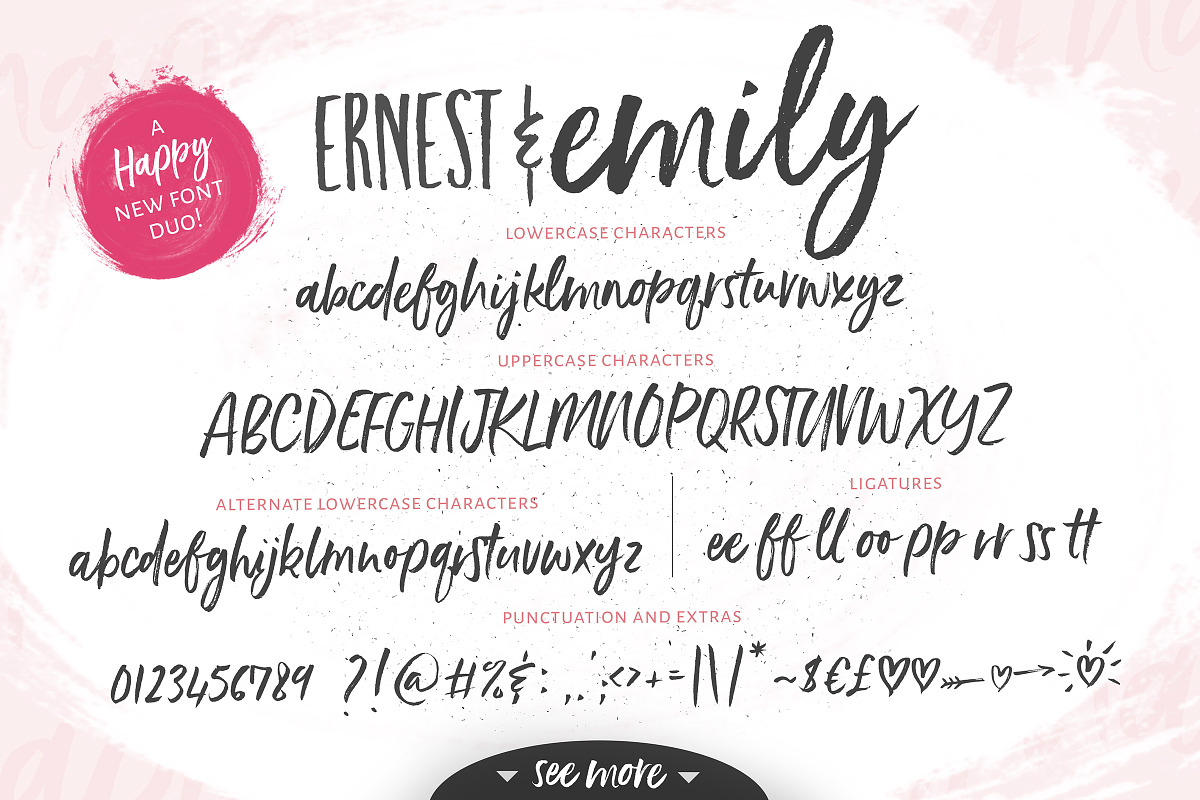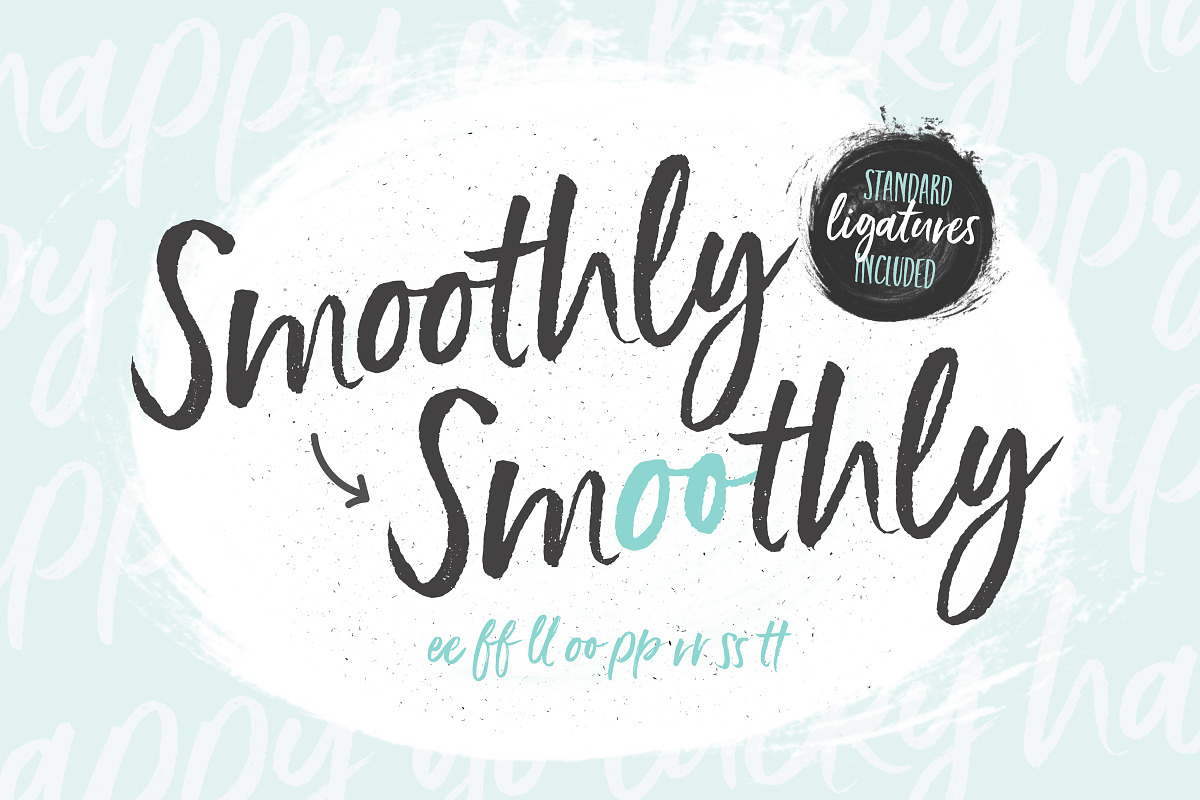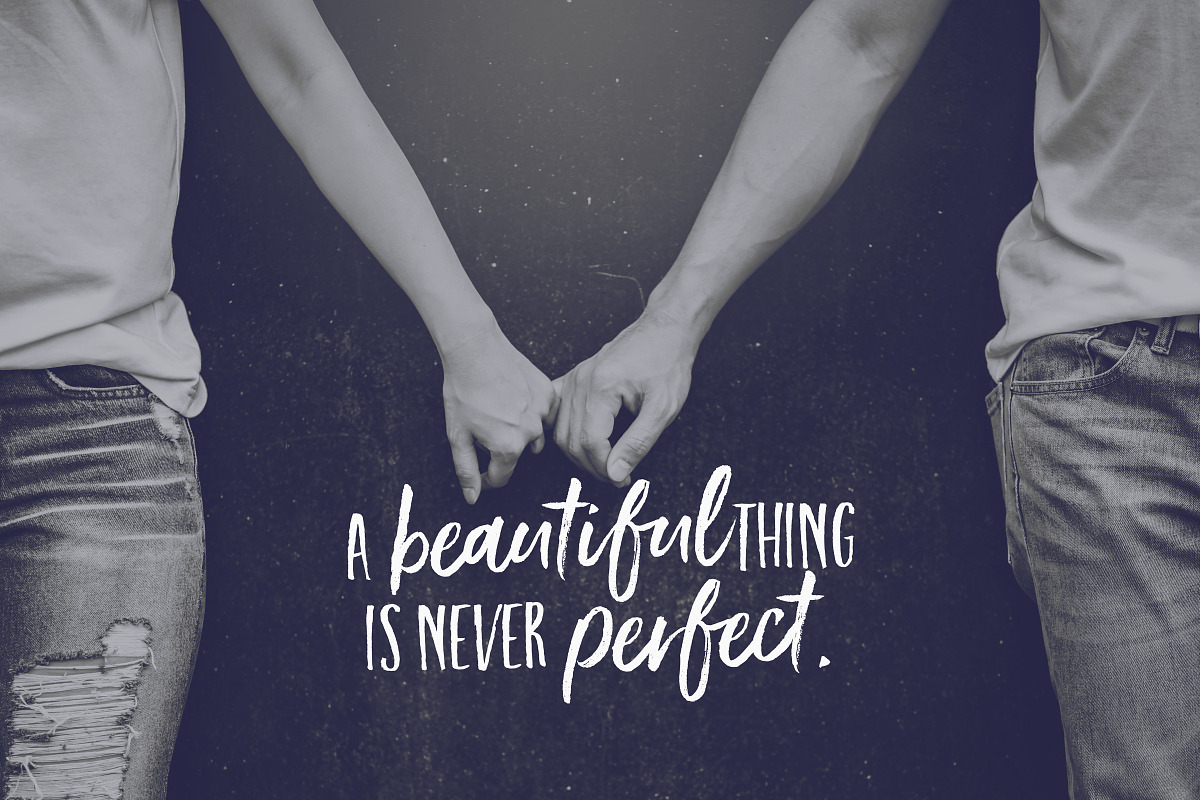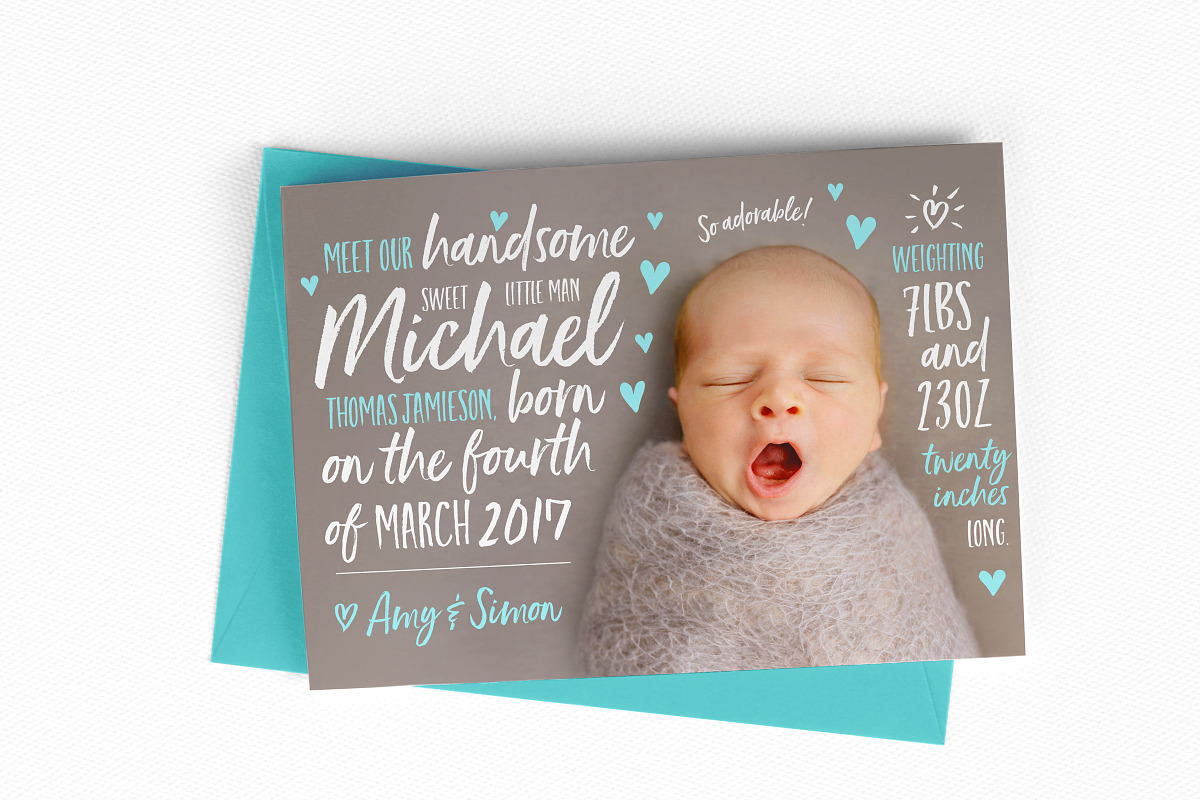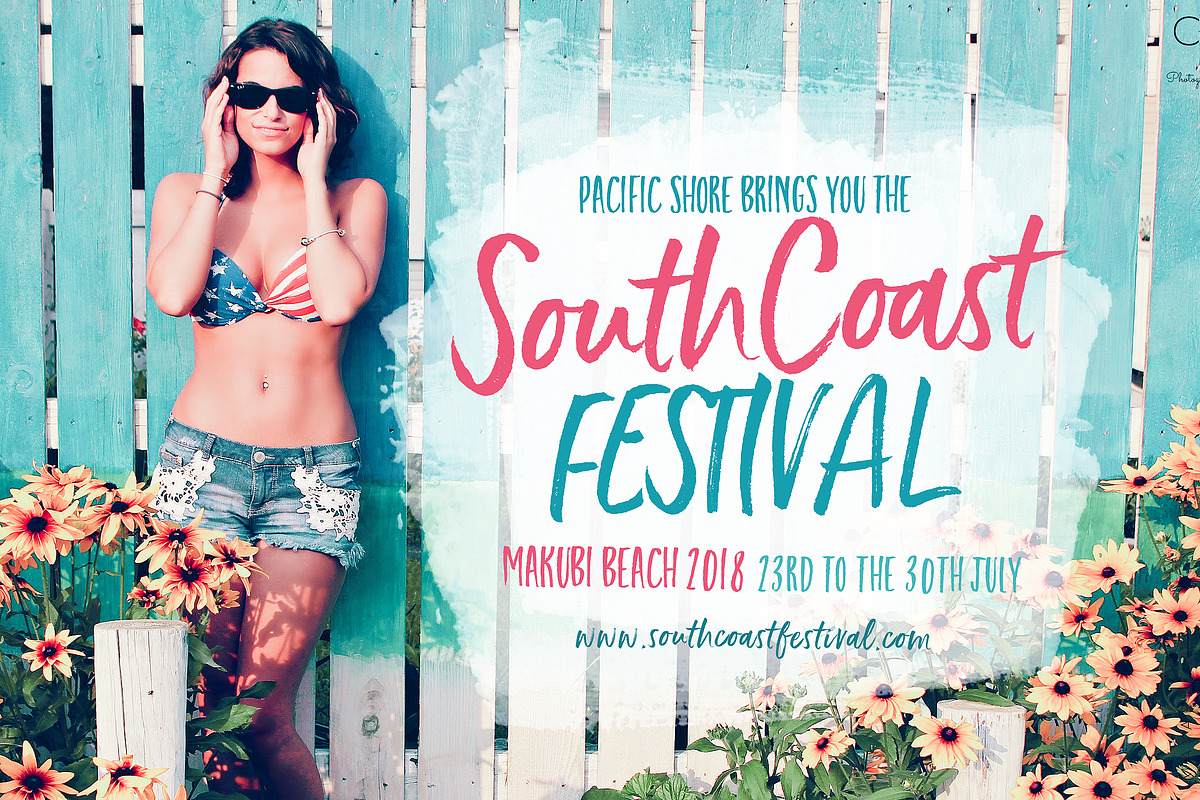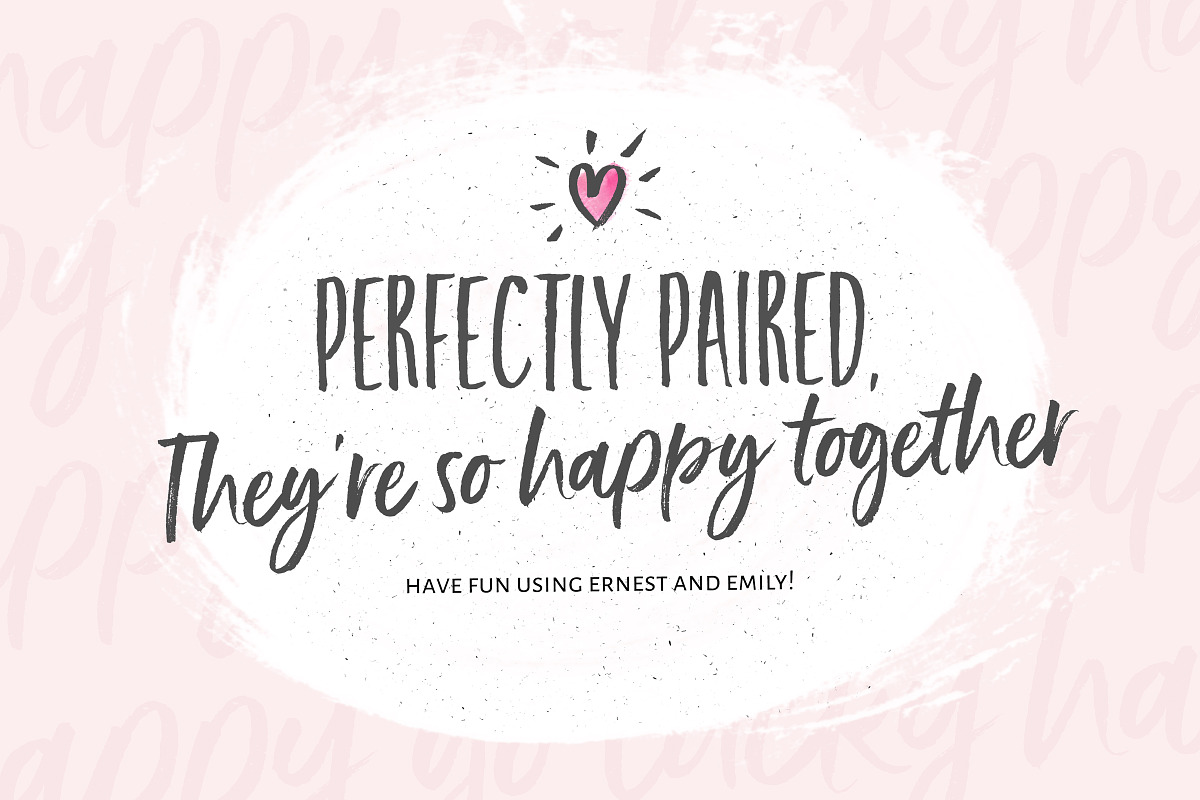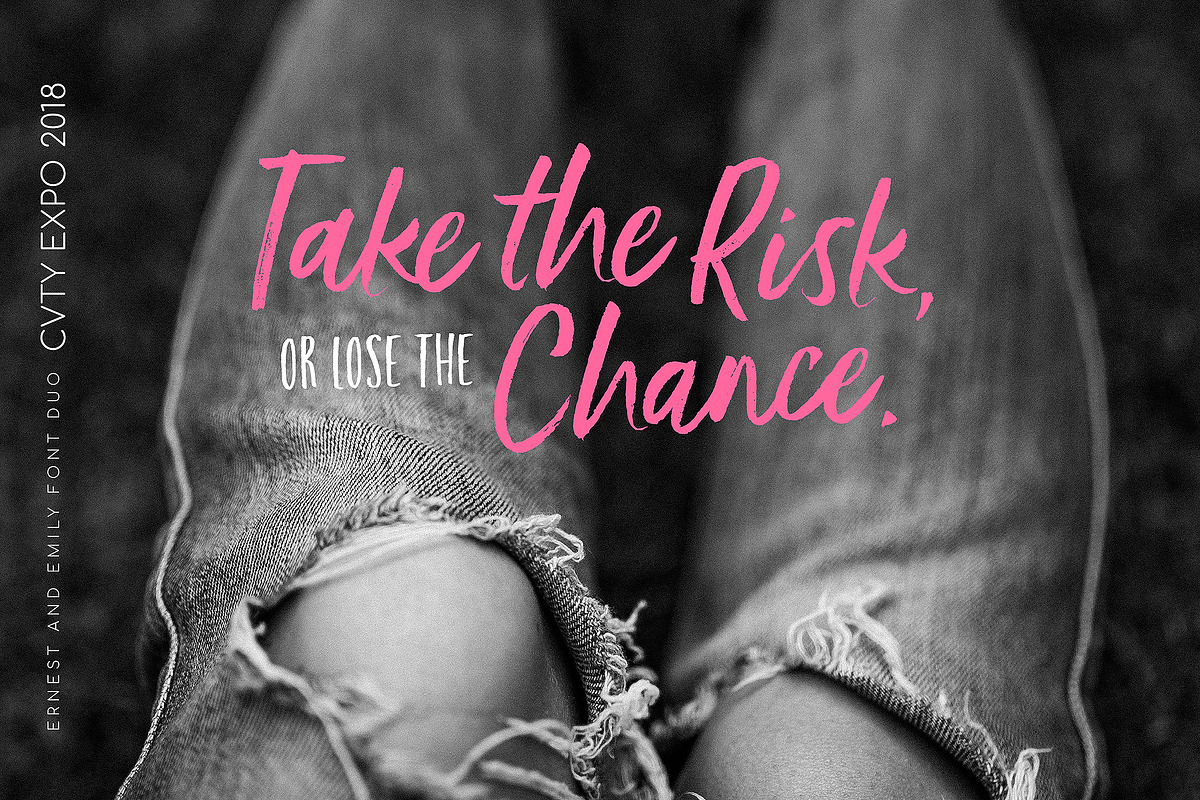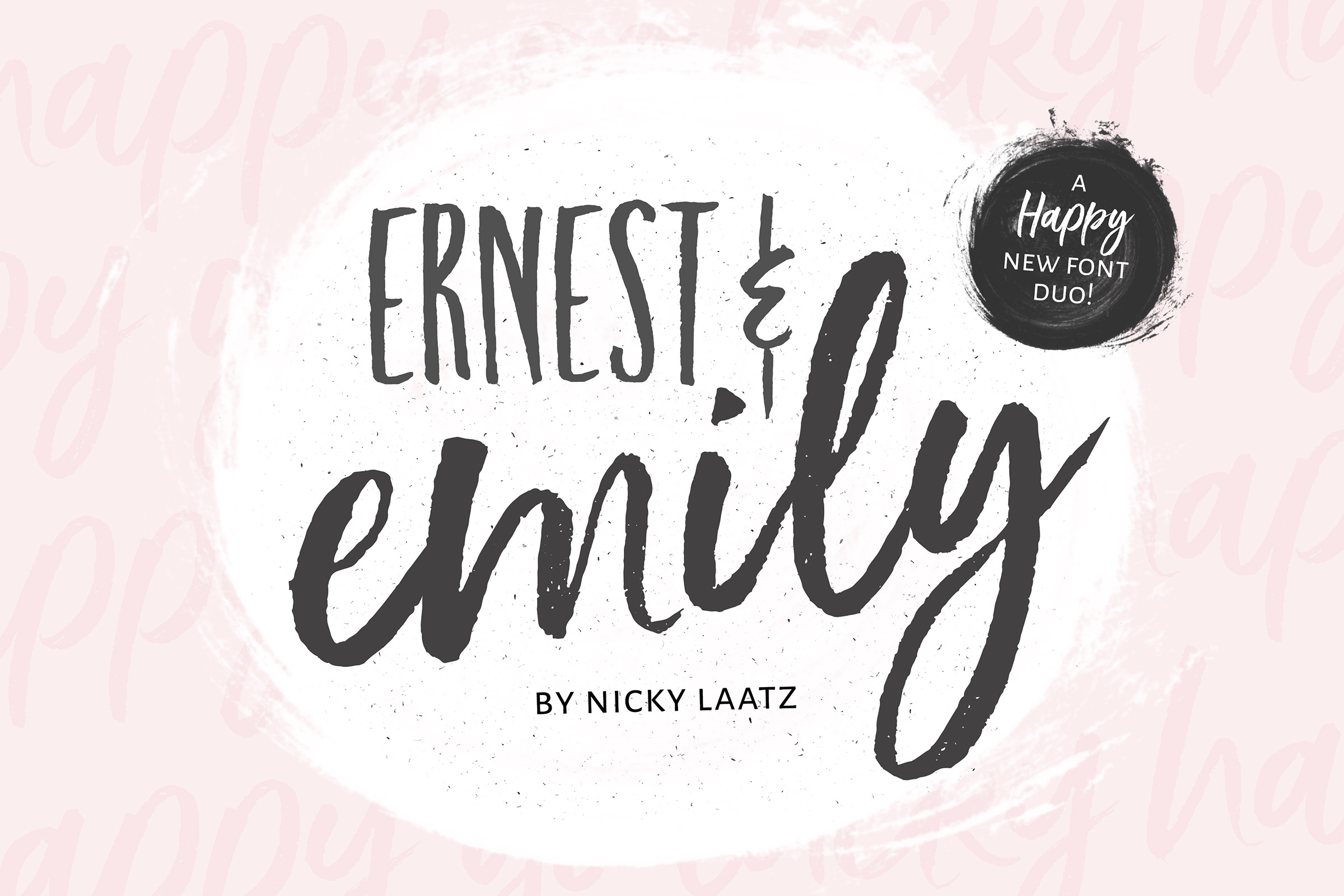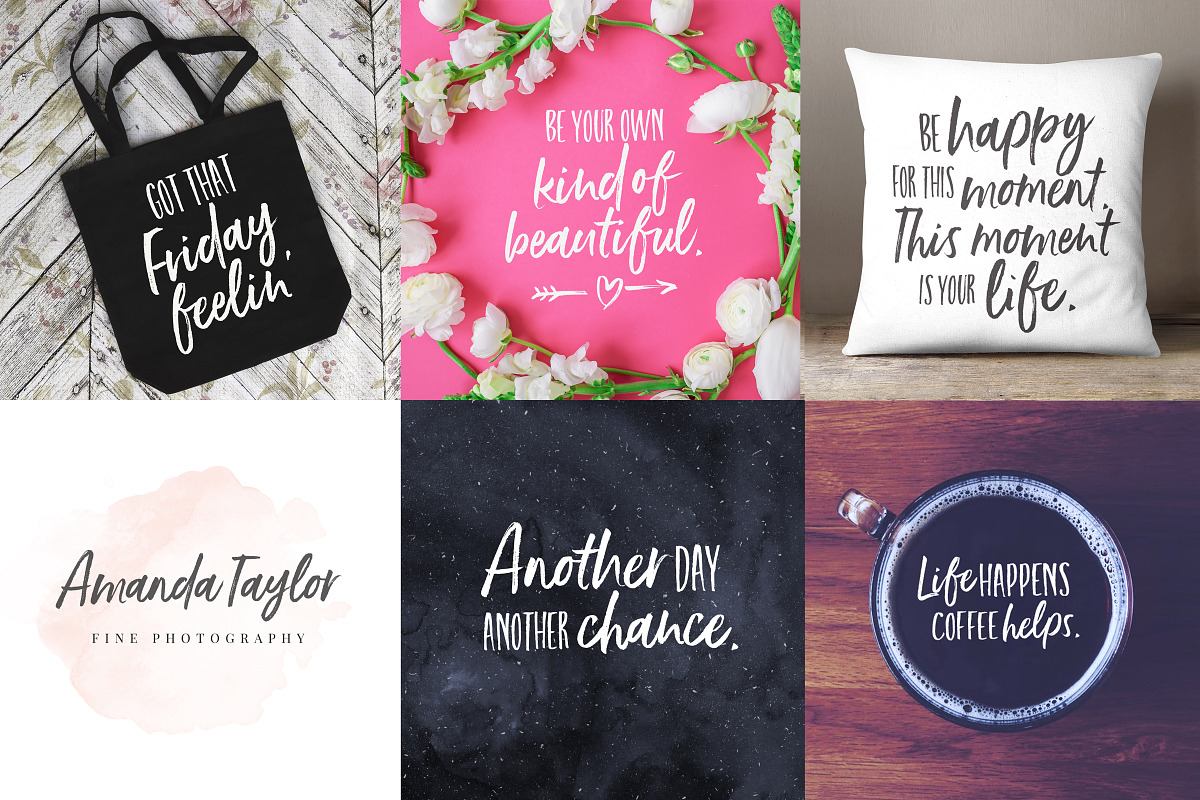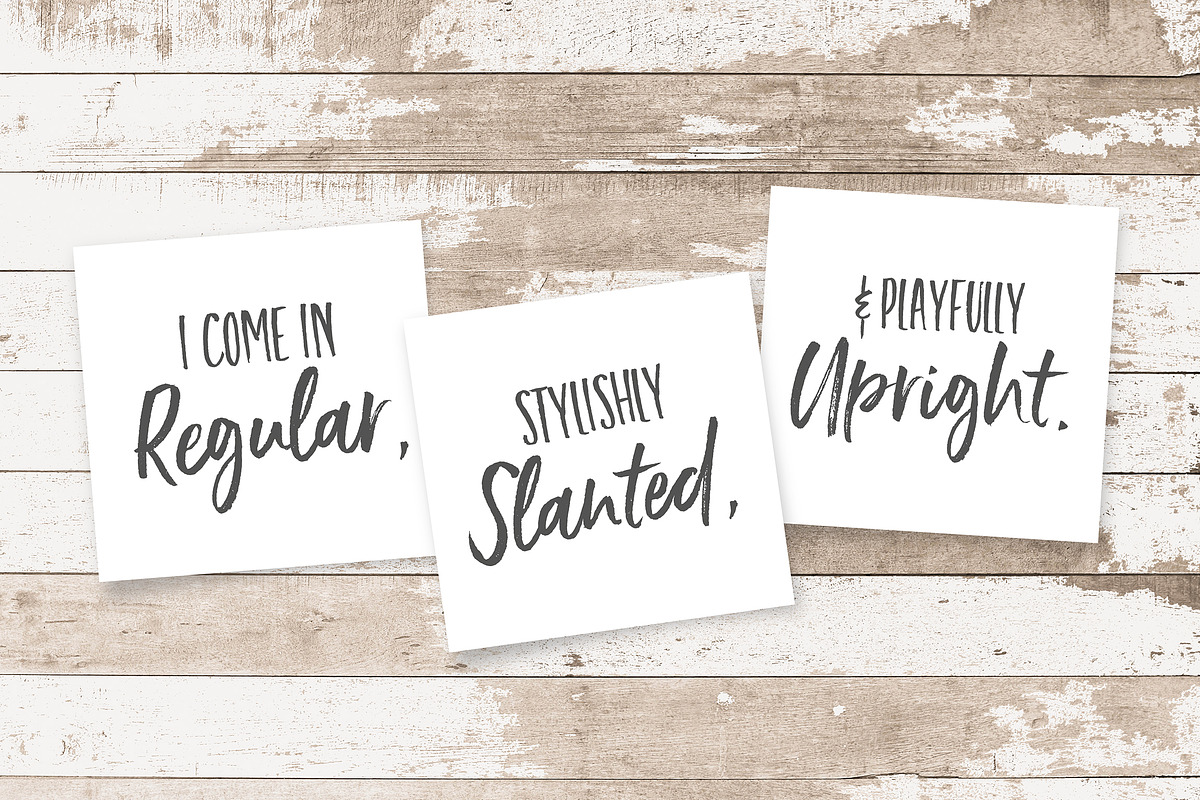
NEW!Ernest & Emily Font Duo
I'd like to introduce you to Ernest and Emily :) ....The happiest font do you'll ever meet :) They are completely in love with each other, and always get along like a house fire :)
Ernest and Emily consist of two lovingly handwritten fonts. A brushed quirky-casual script, and a playful all-caps sans serif font.
Perfect for Type-based creations, branding, websites, merchandise, packaging, quotes, invites, greetings, book covers, editorials and so much more! All they need is a blank canvas, and they work their magic for you!
The script comes in 3 variants - Regular, Slanted and Upright- each with its own twist to fit the look you need :)
Four sweet little heart glyphs can be found by typing the characters { } and [ ] individually :)